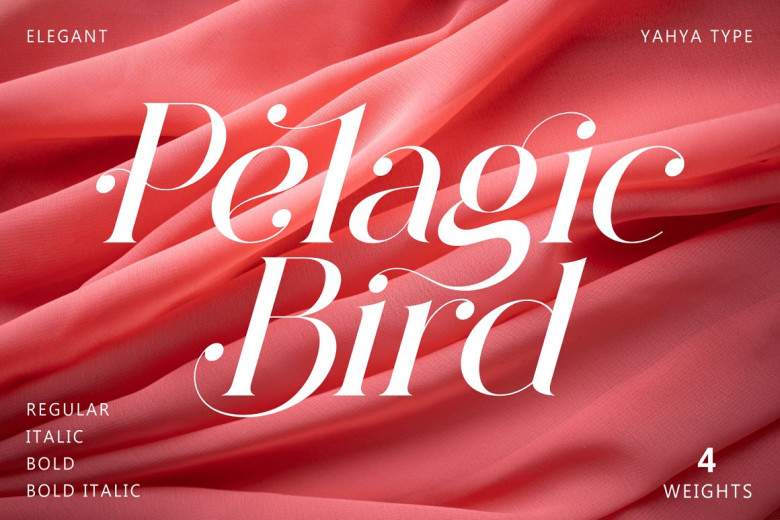
Pelagic Bird Font
Introducing Pelagic Bird is a unique ligature font. Clean, smooth, and nostalgic. Suppose you are confused about the design that combines all these fonts. It will perfect for many design projects: logo, wedding, social media posts, advertisements, product packaging, product design, label, photography, watermark, invitation, or any project you want.
Pelagic Bird Serif Font